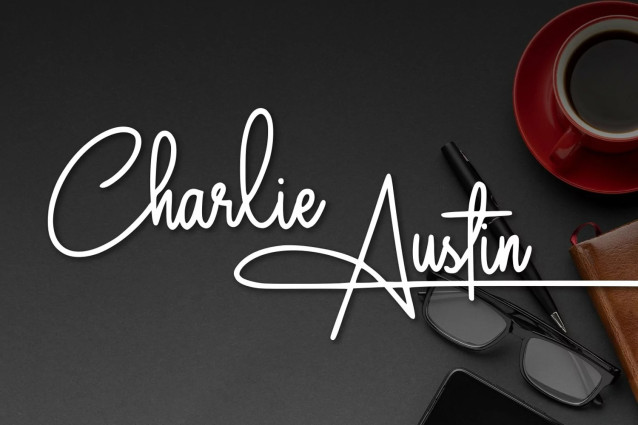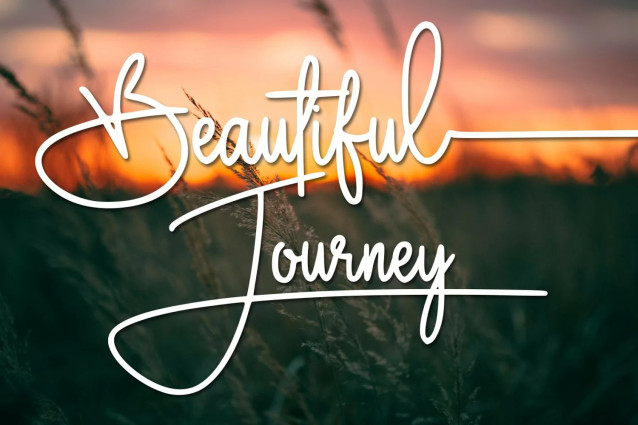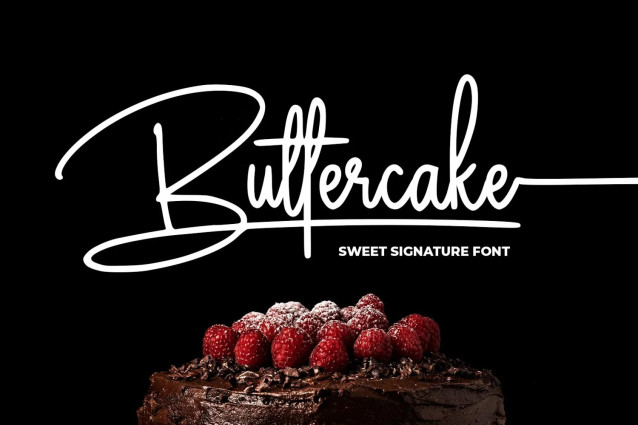
Buttercake Handwriting Font
Buttercake Handwriting Font It is great for logotype, branding, packaging, t-shirt designs, tote bag designs, cards, banners, social media, and more.